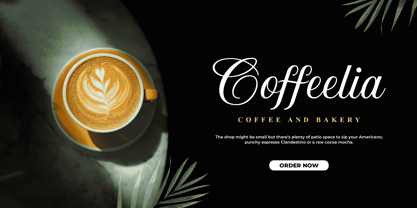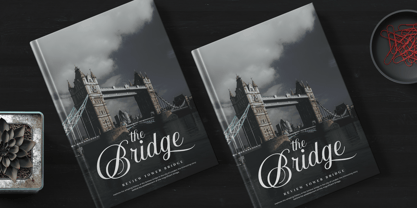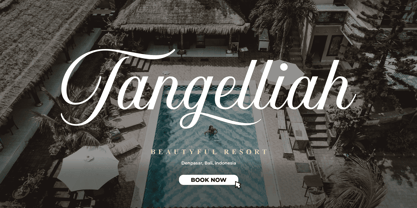
Nova Quinta Font Family was designed by Måns Grebäck and published by Mans Greback. Nova Quinta contains 4 styles family package options.
About the family
Nova Quinta is a breathtaking, enchanting formal script font that weaves an air of magic and sophistication into your designs. With its delightful swirls and exquisite swashes, this font radiates a lovely charm, perfect for adorning wine labels, farm produce packaging, and luxury branding.
Imagine your design coming to life with the genuine elegance of Nova Quinta, transforming your work into an enchanting piece of art. The font's irresistible beauty and decorative allure make it a dreamy choice for projects that require a touch of refinement and grace.
The Nova Quinta font family includes four mesmerizing styles to suit various design needs:
Regular: A gracefully balanced, enchanting style
Bold: A more assertive and captivating presence
Italic: A whimsical dance of flourishes and movement
Bold Italic: The perfect blend of boldness and flair
Unleash your creativity with the advanced OpenType functionality of Nova Quinta. This font family ensures top-notch quality and provides you with full control and customizability. It includes stylistic and contextual alternates, ligatures, and other features to make your designs a vibrant, one-of-a-kind masterpiece.
Nova Quinta embraces an extensive lingual support, covering all Latin-based languages, from Northern Europe to South Africa, from America to South-East Asia. It contains all the characters and symbols you'll ever need, including all punctuation and numbers.